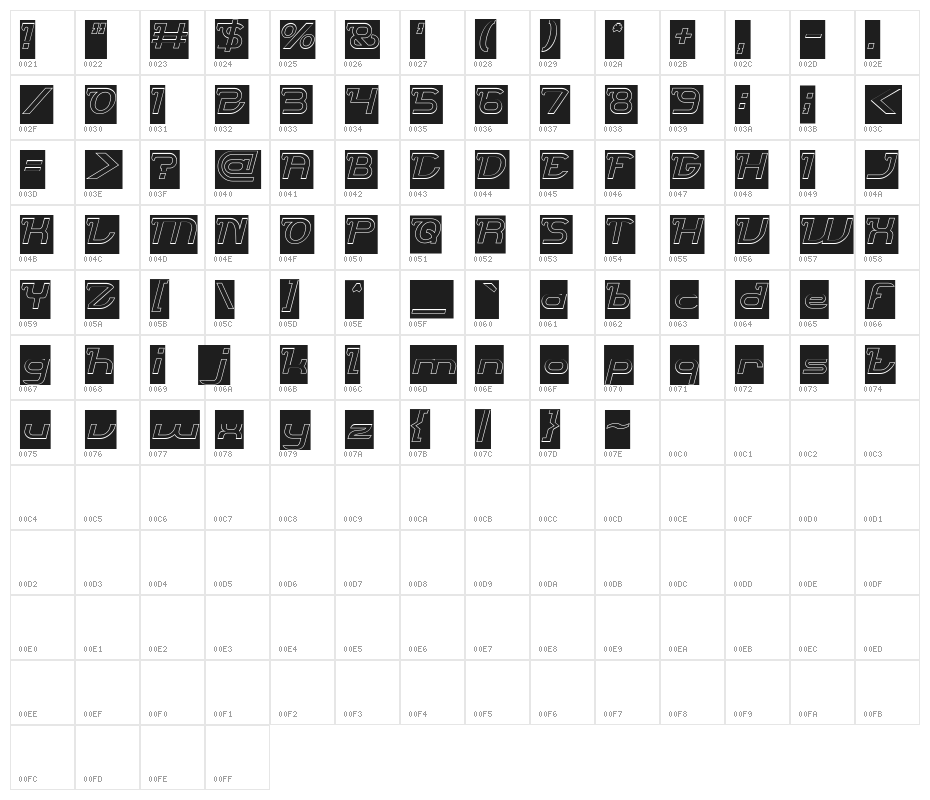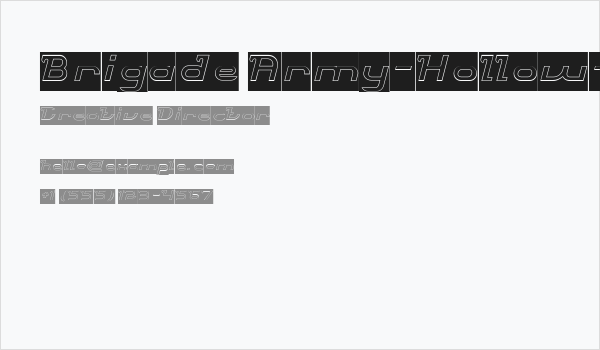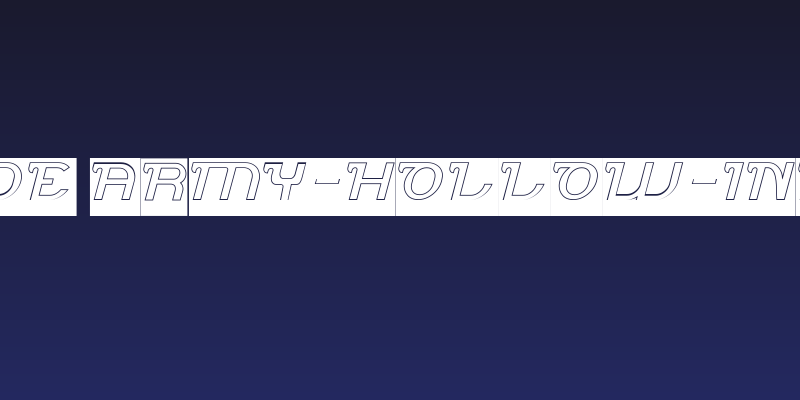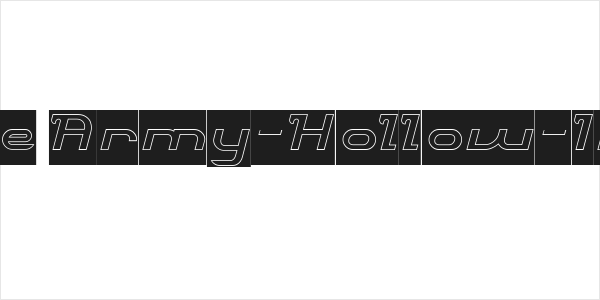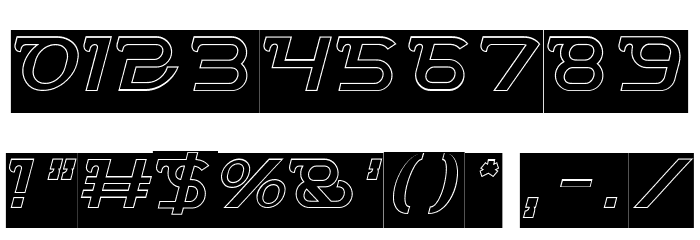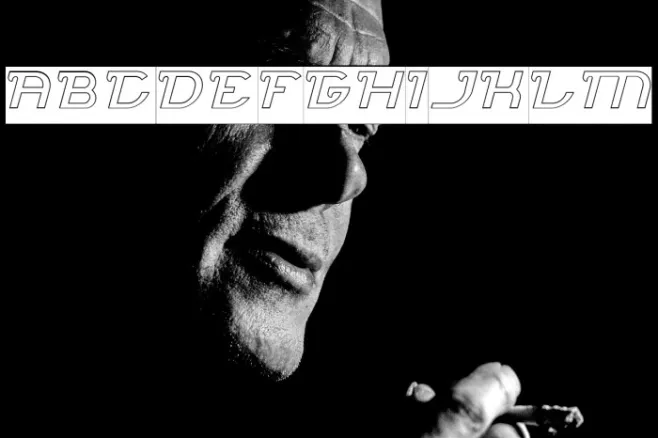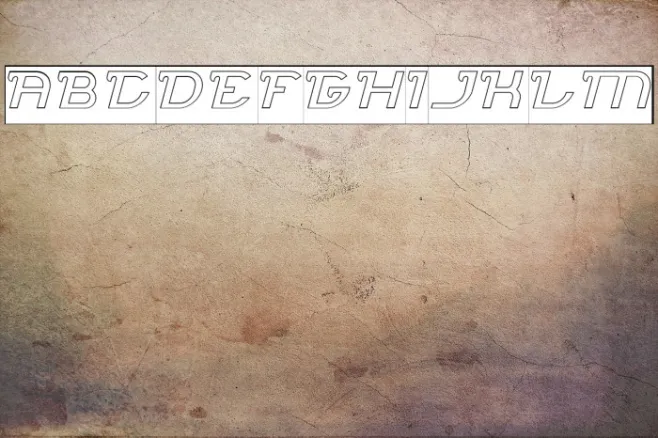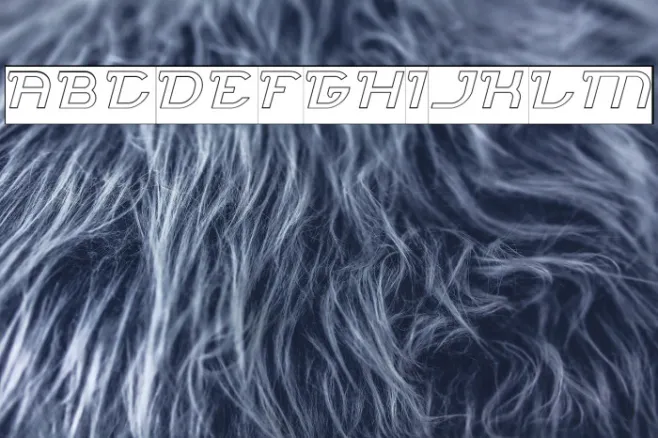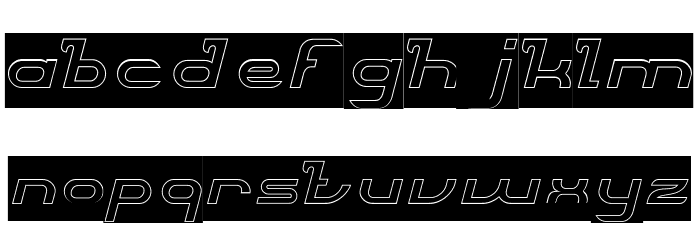
Brigade Army-Hollow-Inverse Font
Brigade Army-Hollow-Inverse Description
This font features a bold, hollow design with a distinct military-inspired aesthetic. The characters are outlined, giving them a striking, inverse appearance that stands out on dark backgrounds. The uppercase and lowercase letters maintain a consistent style, with sharp angles and clean lines that convey a sense of precision and strength. The numerals and special characters follow the same design principles, ensuring uniformity across all glyphs. This font's unique style makes it ideal for projects that require a bold and authoritative look.
| Proposed Projects | Ideal for military-themed posters, video game graphics, branding for tactical gear, and bold headlines. |